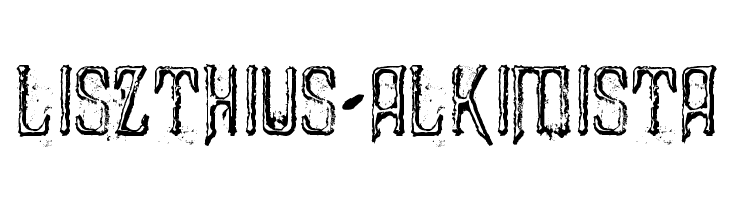
A bold, grunge-style font with a splattered, distressed appearance.
A bold, distressed font with a vintage, grunge aesthetic.
A distressed, grungy font with splatter and drip effects for an edgy look.
A bold, gritty font with splattered, distressed strokes and a chaotic artistic vibe.
A chaotic, distressed font with erratic strokes and a rebellious aesthetic.
A bold, distressed font with a grungy, urban style.
A bold, distressed font with a grunge, spray-painted look.
A playful, distressed font with jagged edges and a bold appearance.